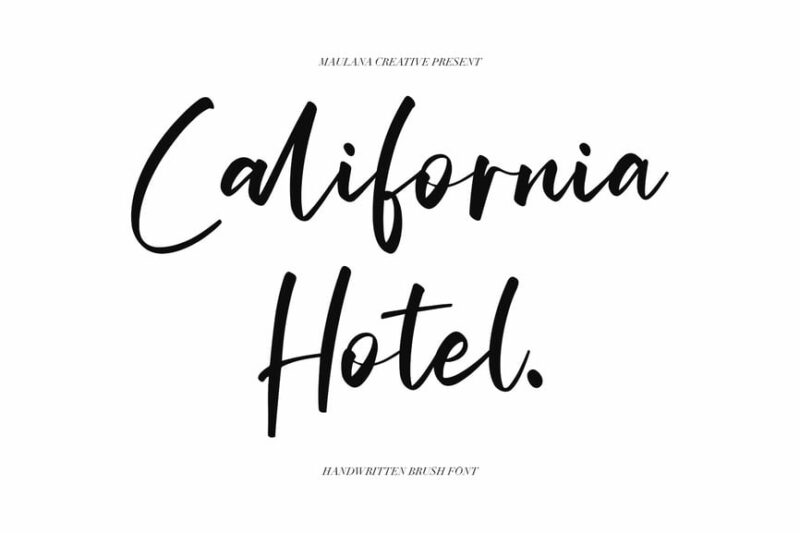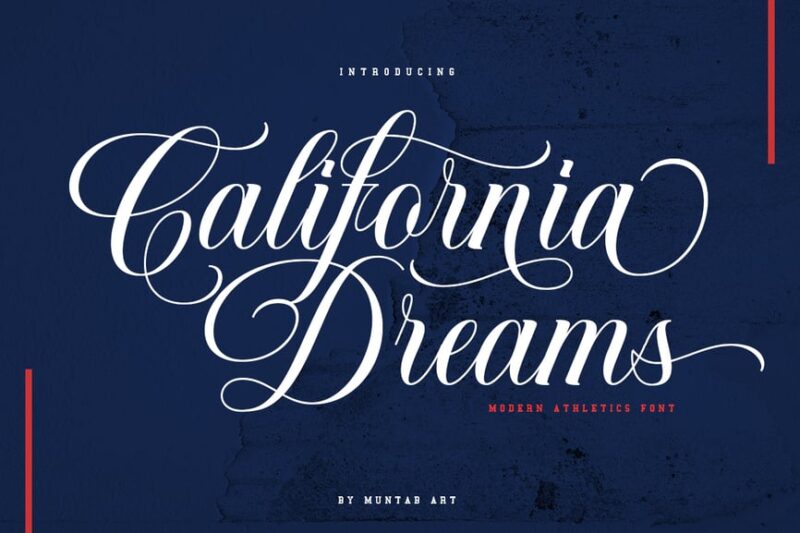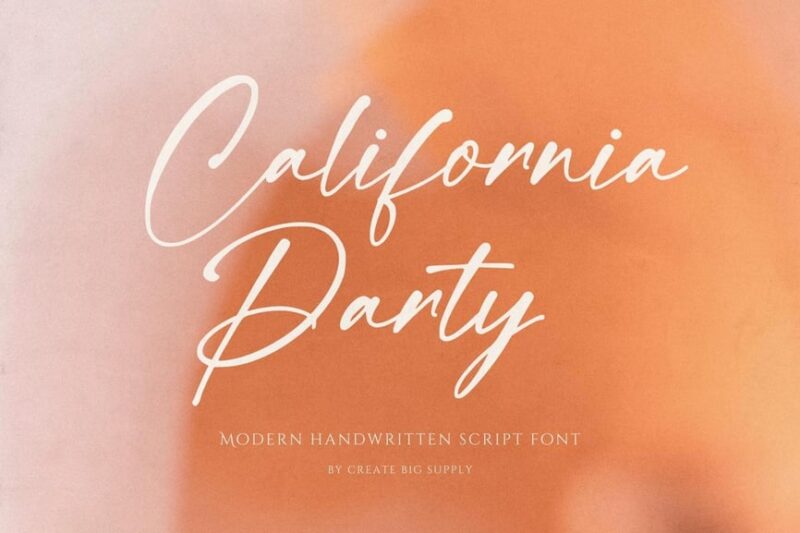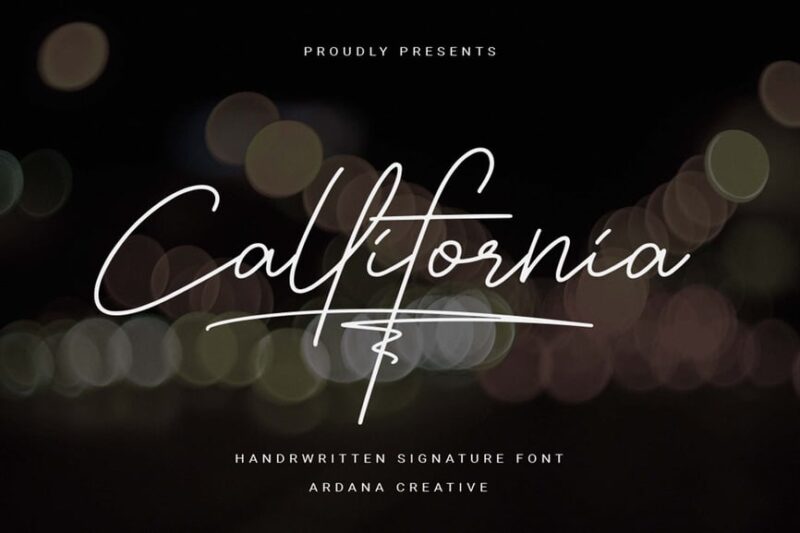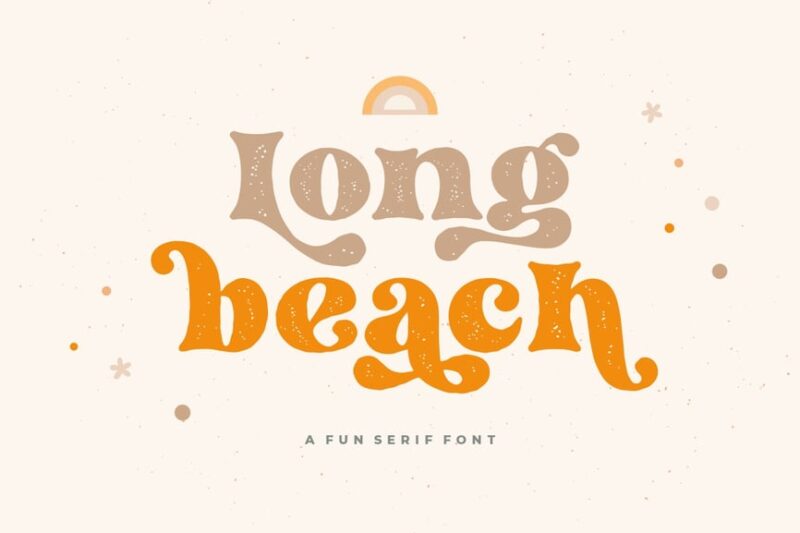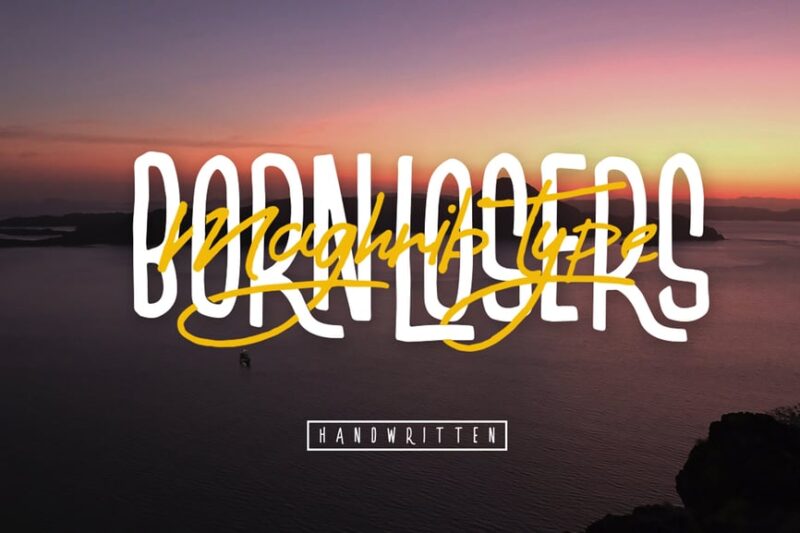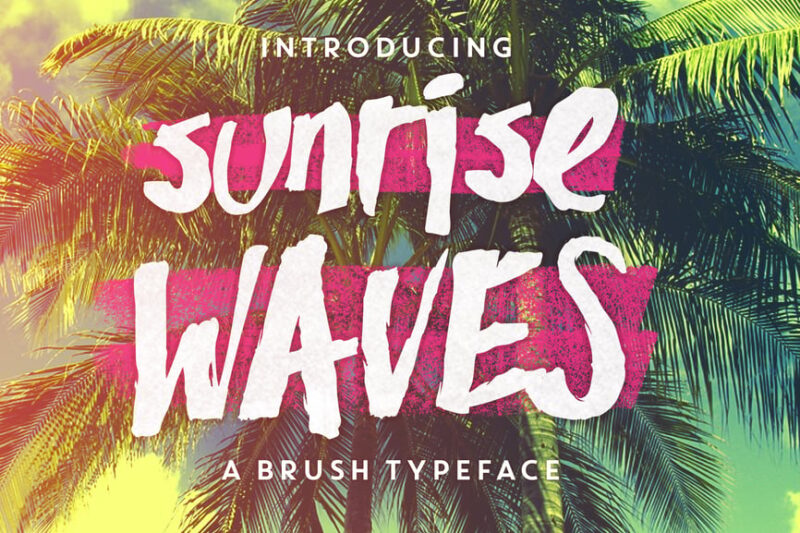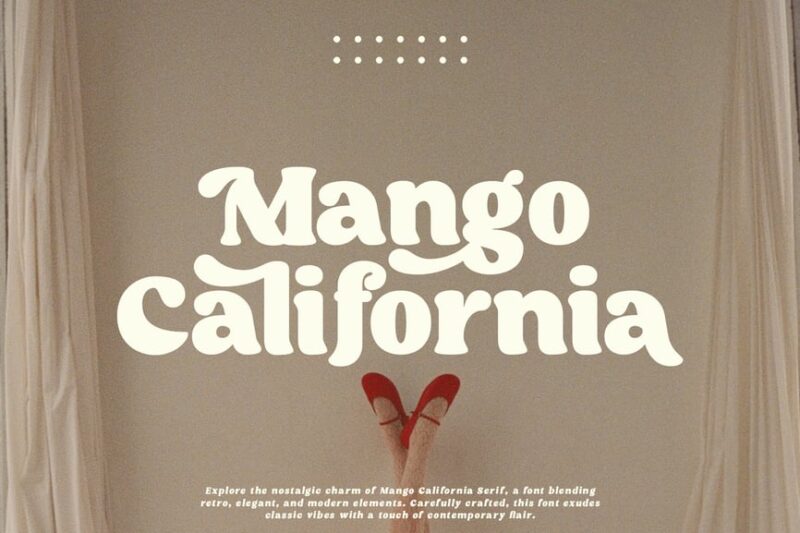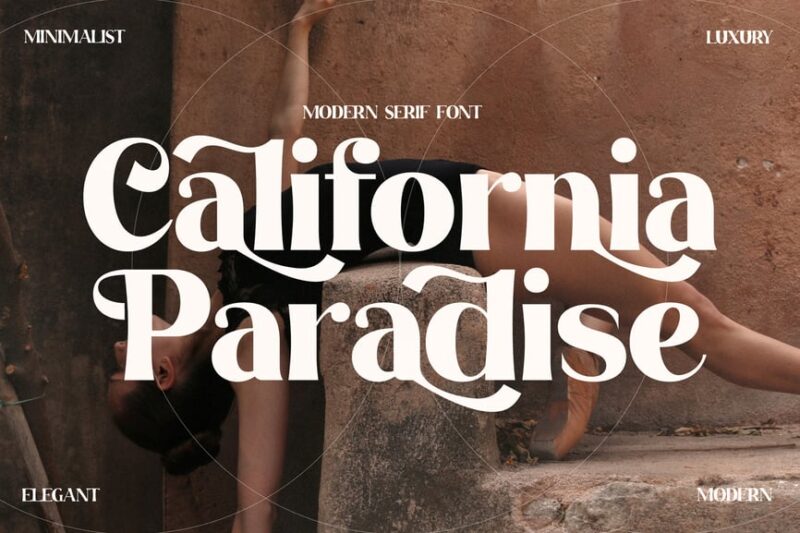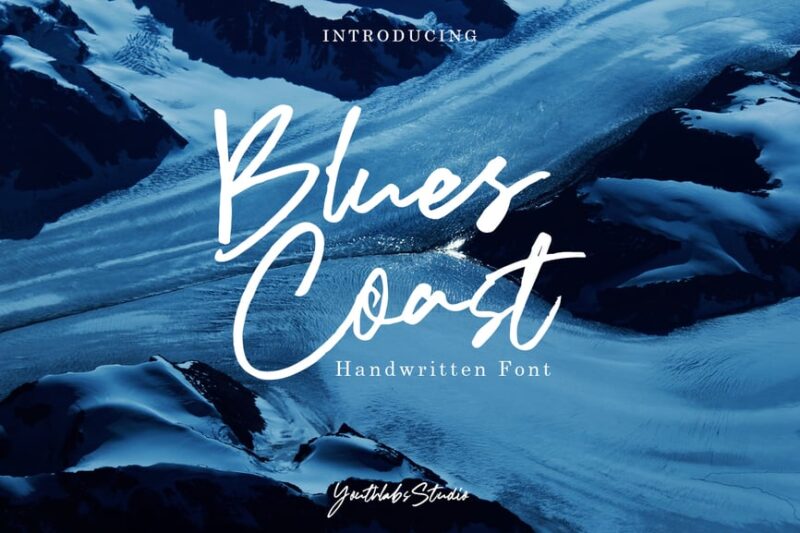
The Pacific breeze carries more than just salt air – it brings with it a design sensibility that’s been shaping visual culture for decades. California typography doesn’t just sit on the page; it radiates that unmistakable West Coast energy that somehow manages to be simultaneously relaxed and revolutionary, nostalgic and cutting-edge.
What sets California fonts apart is their chameleon-like ability to shift between worlds. One moment they’re channeling the free-spirited creativity of 1960s counterculture, the next they’re embodying the precision and innovation of modern tech giants. They’re equally at home on a craft brewery label as they are on a luxury resort website, adapting to capture everything from desert minimalism to coastal maximalism.
Ready to explore typography that’s as diverse and dynamic as California itself? We’re about to uncover fonts that don’t just represent the Golden State – they ARE the Golden State, distilled into letterforms that pulse with Pacific coast creativity!
The Most Golden California Fonts of 2026
Not all fonts can capture California’s diverse personality, so I’ve curated a list of my favorite California-inspired typefaces. Here’s what’s making waves:
California Vibes Font Duo
California Vibes Font Duo combines a relaxed script with a complementary sans-serif, capturing the essence of coastal California. This versatile pair is perfect for creating cohesive designs that balance casual coolness with clean simplicity, ideal for beach-themed branding or lifestyle projects.
California Vibes
California Vibes is a decorative font that captures the essence of laid-back West Coast living. Its relaxed, slightly tropical style makes it ideal for creating designs that evoke the sunny, carefree atmosphere of a California vacation, perfect for beach-themed projects or lifestyle branding.
California Sunshine
California Sunshine is a versatile wavy font family that combines sans-serif, script, and decorative styles with a psychedelic twist. Its eclectic mix of characters makes it perfect for creating bold, eye-catching designs that capture the vibrant, free-spirited essence of California’s coastal culture.
Costa La Vista Font
Costa La Vista is a versatile distressed font family that combines script, sans-serif, and decorative styles. Its playful mix of 80s-inspired elements and Spanish flair makes it perfect for creating vibrant, eye-catching designs for beach resorts, tropical-themed events, or retro-inspired projects.
Sunrise Waves
Sunrise Waves is a smooth sans-serif font that captures the serene beauty of coastal mornings. Its clean lines with subtle curves evoke a sense of gentle ocean waves, making it ideal for surf-related designs, Hawaiian designs, vacation branding, or any project requiring a calm, beachy vibe.
San Francisco Font
The San Francisco Font is a decorative script that captures the city’s unique blend of vintage charm and modern cool. Its flowing lines and subtle texture make it ideal for creating logos, headlines, or any design that needs to evoke the spirit of this iconic California city.
Retro Vacation Font – The Tide
The Tide is a retro-inspired sans-serif block font that perfectly captures the essence of a vintage beach vacation. Its bold, slightly rounded edges and groovy vibe make it ideal for surf-related designs, travel posters, or any project aiming to evoke nostalgia for classic coastal getaways.
Monterey
Monterey is a modern script font that blends contemporary style with a hint of futuristic flair. Its smooth, flowing lines and subtle techno edge make it versatile for various applications, from sleek branding projects to forward-thinking design concepts with a touch of California cool.
Mango California
Mango California is a classic serif font with a modern twist, perfect for creating sophisticated logos. Its clean lines and subtle vintage feel make it versatile for various applications, from minimal branding to Canva designs with a touch of California elegance.
California Hotel
California Hotel is a handwritten brush font that exudes a casual, laid-back vibe. Its brushstroke texture and flowing script make it perfect for designs related to cafes, beach-themed projects, or any California-inspired graphics.
California Dreams Athletics Script
This athletic script font combines a Western feel with a dreamy touch. It’s perfect for sports-related designs, especially those with a California or West Coast theme. The font’s dynamic style adds energy and movement to any composition.
California Party Chic Handwritten Signature Font
California Party Chic is an elegant handwritten signature font that balances sophistication with a touch of whimsy. Its flowing lines and subtle irregularities make it ideal for creating a personalized, high-end look for invitations, branding, or social media content.
Angel Coast
Angel Coast is a modern retro decorative font that blends coastal vibes with a disco twist. Its unique character shapes and groovy style make it perfect for creating eye-catching headlines or logos, especially for projects with a vintage or beachy theme.
Callifornia
Callifornia is a handwritten signature font that captures the essence of California’s relaxed lifestyle. Its natural flow and subtle imperfections give designs an authentic, personal touch, making it ideal for signatures, branding, or any project requiring a genuine handwritten feel.
Long Beach
Long Beach is a decorative serif font that embodies the spirit of summer and coastal living. Its bold, chunky serifs and playful character shapes make it perfect for beach-themed designs, summer event promotions, or any project that needs a touch of sun-soaked charm.
Summer Wednesday
Summer Wednesday is a carefree script font that evokes the laid-back atmosphere of a beach vacation. Its flowing lines and relaxed style make it ideal for surf-related designs, travel content, or any project that aims to capture the essence of summer leisure.
BornLosers
BornLosers is a gritty, handwritten font with a surf and marine influence. Its raw, imperfect edges give designs an authentic, underground feel, making it perfect for alternative beach culture, surf brands, or edgy coastal-themed projects.
California Paradise Modern Serif Font
California Paradise is a modern serif font that balances elegance with a laid-back California feel. Its clean lines and subtle serifs make it versatile for various branding projects, especially those aiming to convey a sense of sophisticated West Coast style.
Blues Coast
Blues Coast is a handwritten font that evokes the feeling of a leisurely painted sign on a coastal boardwalk. Its casual, slightly irregular strokes give designs a genuine, artisanal quality, perfect for projects requiring a handcrafted, beachy aesthetic.
Hollywoody
Hollywoody is an extreme caps height script font that captures the glamour and drama of old Hollywood. Its exaggerated vertical strokes and retro flair make it perfect for creating bold, attention-grabbing headlines or logos with a touch of vintage Western charm.
Coastline
Coastline is a fresh, handwritten script font that embodies the relaxed spirit of coastal living. Its fluid lines and natural flow make it ideal for magazine layouts, branding projects, or any design that aims to convey a modern, beachy vibe.
Orange Crate
Orange Crate is a bold, blocky sans-serif font that exudes a strong, corporate feel. Its solid, geometric shapes make it perfect for creating impactful logos or headlines, especially for brands looking to convey reliability and strength with a subtle nod to California’s citrus heritage.
Stayday
Stayday is a playful bubble font that embodies the carefree spirit of a beach vacation. Its quirky character shapes and relaxed style make it perfect for creating fun, eye-catching designs for holiday promotions, summer events, or any project that needs a touch of coastal whimsy.
Shrooms Garden
Shrooms Garden is a groovy, retro display font that captures the psychedelic spirit of the 70s. Its funky, rounded shapes and playful style make it perfect for creating eye-catching headlines or logos for vintage-inspired projects, especially those with a nod to California’s counterculture history.
Stone Ocean
Stone Ocean is a bouncy square font that combines geometric shapes with a coastal vibe. Its playful, wavy character forms evoke the feeling of ocean ripples, making it ideal for beach-themed designs, surf brands, or any project that needs a fun, seaside-inspired typography.
Travelista
Travelista is a vacation-inspired display serif font that exudes wanderlust and adventure. Its elegant yet playful character shapes make it perfect for travel branding, holiday promotions, or any design project aimed at capturing the excitement of exploring new destinations.
California – Stylish Fashion Font
This luxurious font brings a touch of California cool to fashion-forward designs. Its elegant, refined character shapes make it ideal for high-end fashion branding, magazine layouts, or any project that requires a sophisticated, West Coast-inspired typography.
California Sunset Font Family
The California Sunset Font Family is a diverse collection of sans-serif, script, and decorative styles that capture the warmth and vibrancy of a West Coast sunset. This versatile duo is perfect for creating dynamic summer-themed designs, from beachwear branding to vacation advertising.
What Makes California Fonts Feel So Authentic?
California fonts get their distinctive West Coast personality from several key characteristics that reflect the state’s diverse culture and landscape:
Laid-Back, Flowing Letterforms
California fonts often feature relaxed, flowing shapes that mirror the state’s easy-going attitude. Think smooth curves reminiscent of ocean waves, loose baselines that feel like a casual stroll down the boardwalk, and organic shapes that echo the natural beauty of the coastline.
These fonts don’t feel rigid or corporate – they breathe with the same relaxed energy you’d find at a Malibu beach café or a Santa Monica farmers market.
Sun-Kissed Warmth
Many California fonts incorporate design elements that feel warm and inviting, much like the state’s famous sunshine. Rounded edges, friendly letterforms, and open counters create typefaces that feel approachable and optimistic.
The best California fonts make you feel like you’re basking in that perfect 75-degree weather year-round.
Innovation Meets Tradition
California is where cutting-edge tech companies sit alongside historic Spanish missions. The best California fonts capture this unique blend – they might combine modern, clean lines with vintage-inspired details, or pair sleek geometry with handcrafted imperfections.
Diverse Cultural Influences
From Mexican heritage to Asian communities, from surfer culture to Hollywood glamour, California fonts often reflect the state’s incredible diversity. You’ll find fonts inspired by everything from vintage neon signs to mission-style architecture.
Where Can You Use California Fonts?
California fonts are incredibly versatile, making them perfect for a wide range of applications that want to capture that West Coast spirit:
Brand Identity
California fonts are fantastic for brands wanting to convey innovation, creativity, and approachability. Tech startups love clean, modern California fonts that feel cutting-edge yet human. Lifestyle brands often choose script California fonts that feel authentic and artisanal.
Whether you’re branding a sustainable fashion company in San Francisco or a wellness retreat in Big Sur, California fonts help establish that coveted West Coast credibility.
Tourism and Hospitality
Hotels, restaurants, travel agencies, and tourism boards use California fonts to instantly communicate that laid-back luxury the state is famous for. A well-chosen California font can make visitors feel like they’re already sipping wine in Sonoma or catching waves in Santa Cruz.
Entertainment and Media
From movie posters to album covers, California fonts help capture the creative energy of Hollywood and the music industry. They’re perfect for projects that need to feel current, creative, and culturally relevant.
Food and Beverage
California’s farm-to-table movement and craft beverage culture have made California fonts incredibly popular for restaurants, breweries, wineries, and food brands. These fonts help communicate freshness, quality, and that artisanal California approach to food and drink.
Tech and Startups
Silicon Valley has made California fonts synonymous with innovation and forward-thinking design. Clean, geometric California fonts are perfect for apps, websites, and tech companies that want to feel approachable yet sophisticated.
Where to Avoid California Fonts
While California fonts are wonderfully versatile, there are certain contexts where they might not be the best choice:
Conservative Corporate Environments
Traditional financial institutions, law firms, or government agencies might find California fonts too casual or trendy for their brand image. These contexts often require more formal, traditional typefaces.
Historical or Academic Contexts
Museums focusing on non-California history, academic institutions with traditional values, or publications requiring scholarly gravitas might find California fonts too contemporary or casual.
International Brands
While California has global appeal, brands targeting markets where American West Coast culture doesn’t resonate might want to choose fonts with broader cultural appeal.
How to Choose the Perfect California Font
Selecting the ideal California font requires considering several key factors:
Geographic Inspiration
Different regions of California have distinct personalities. Are you channeling Northern California’s tech sophistication? Southern California’s beach culture? Central California’s agricultural heritage? Choose fonts that reflect your specific California inspiration.
Industry and Audience
A Napa Valley winery needs a different California font than a Santa Monica tech startup. Consider your industry’s conventions while finding ways to inject that California spirit.
Brand Personality
California encompasses everything from laid-back surfer vibes to cutting-edge innovation. Identify which aspect of California culture best matches your brand’s personality, then choose fonts accordingly.
Versatility Needs
Consider how your California font will be used across different media. Will it need to work in both digital and print? At various sizes? Ensure your chosen font maintains its California character across all applications.
Fantastic California Font Alternatives
If you can’t find the perfect California font, these alternatives can help capture that West Coast spirit:
Modern Sans-Serifs
Clean, geometric sans-serifs like Proxima Nova or Avenir capture California’s innovative, forward-thinking spirit without being too specifically regional.
Relaxed Scripts
Handwritten-style fonts like Amatic SC or Kalam provide that casual, approachable feel associated with California culture.
Vintage Display Fonts
Retro-inspired display fonts can capture the nostalgic California aesthetic, perfect for brands wanting to evoke the golden age of West Coast culture.
Common California Font Questions
Let’s address some frequently asked questions about California fonts:
What font represents California best? There’s no single “California font,” but fonts with relaxed, innovative, or sun-soaked characteristics tend to feel most authentically Californian. Script fonts often work well for lifestyle brands, while clean sans-serifs suit tech companies.
Are California fonts good for business? Absolutely! Many successful California-based companies use fonts that reflect the state’s innovative, approachable culture. The key is choosing a California font that aligns with your industry and target audience.
What’s the difference between California fonts and other regional font styles? California fonts tend to blend innovation with relaxation, mixing cutting-edge design with laid-back attitudes. They often feel more optimistic and forward-thinking than fonts from other regions.
Can I use California fonts outside of California? Definitely! California fonts are popular worldwide because they convey positive qualities like innovation, creativity, and approachability that appeal to global audiences.
The Golden State of Typography
California fonts represent more than just letters – they’re a gateway to the dreams, innovation, and lifestyle that make the Golden State so captivating. From the tech campuses of Silicon Valley to the surf breaks of San Diego, these fonts help brands and designers capture that indefinable California magic.
The beauty of California fonts lies in their diversity. Just like the state itself, they can be anything from minimalist and tech-forward to organic and artisanal. They can evoke the glamour of Hollywood, the innovation of Silicon Valley, the relaxation of wine country, or the adventure of the great outdoors.
Whether you’re designing for a startup that wants to change the world or a local business that embodies community values, California fonts offer the perfect blend of aspiration and authenticity. They help your designs feel current without being trendy, sophisticated without being stuffy, and innovative without being cold.
So next time you’re working on a project that needs a touch of West Coast magic, consider a California font. After all, in the Golden State, even the typography dreams big.